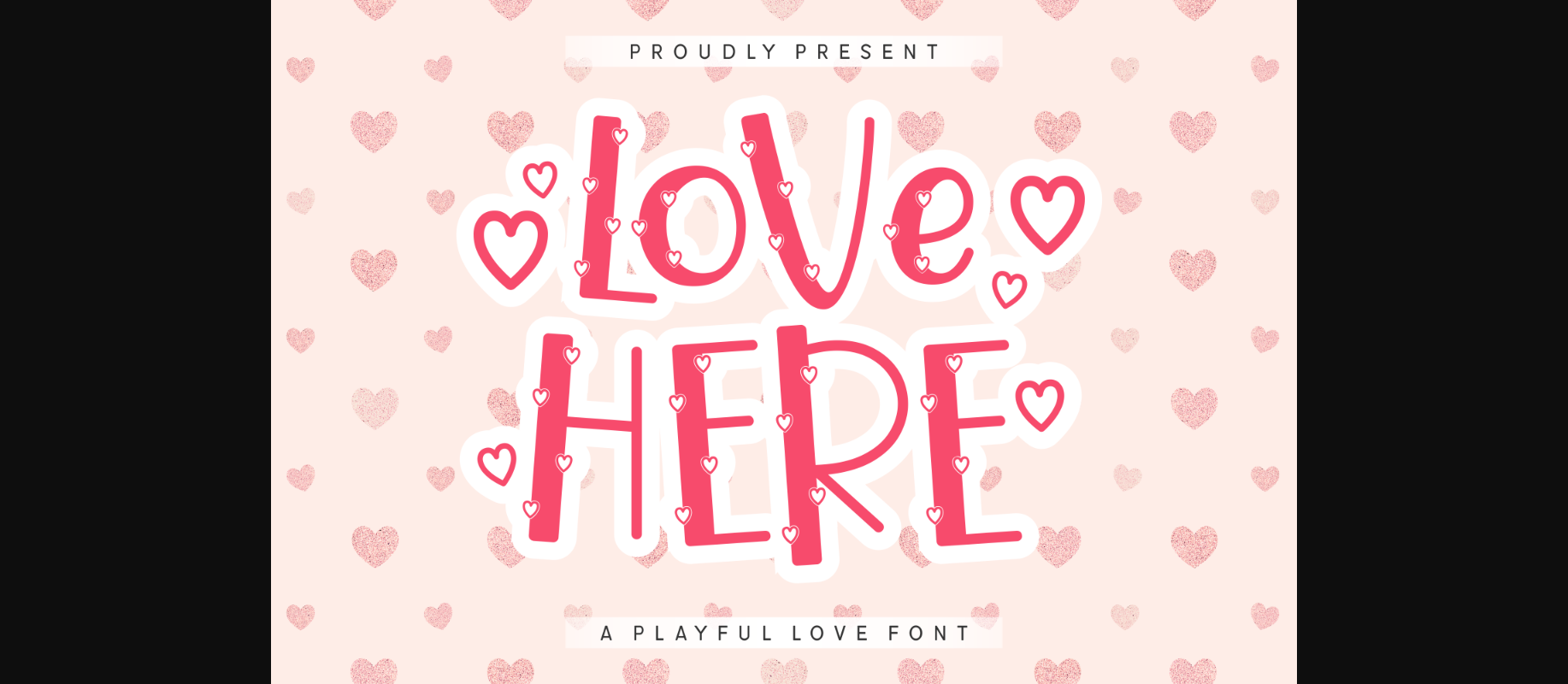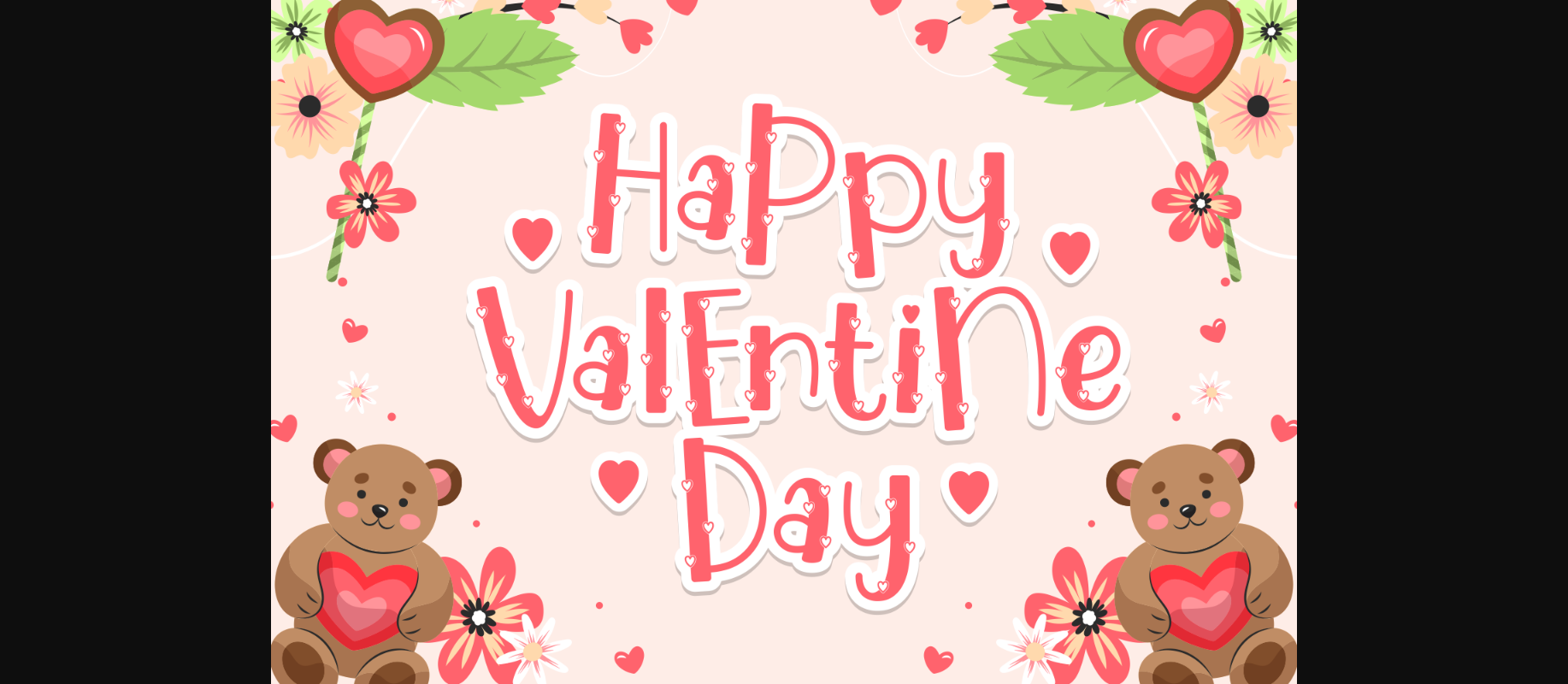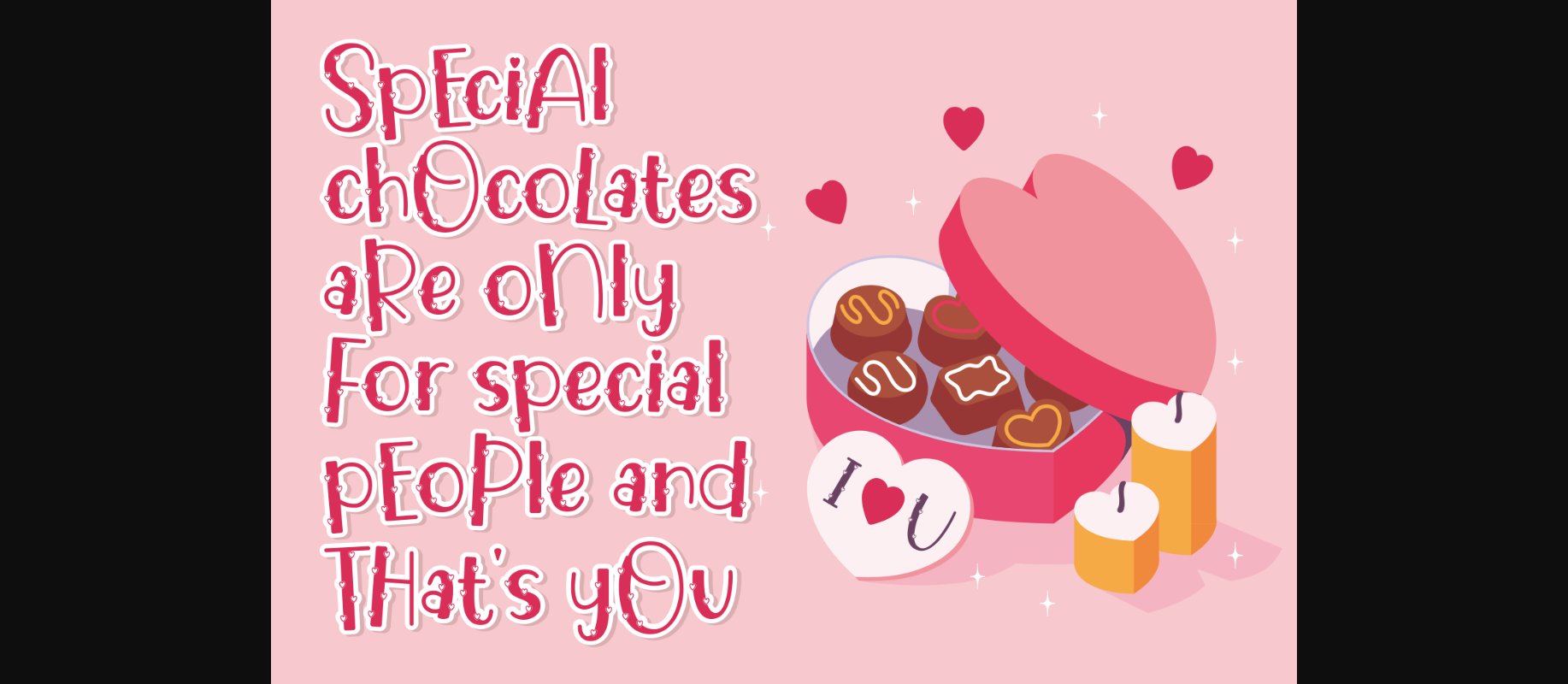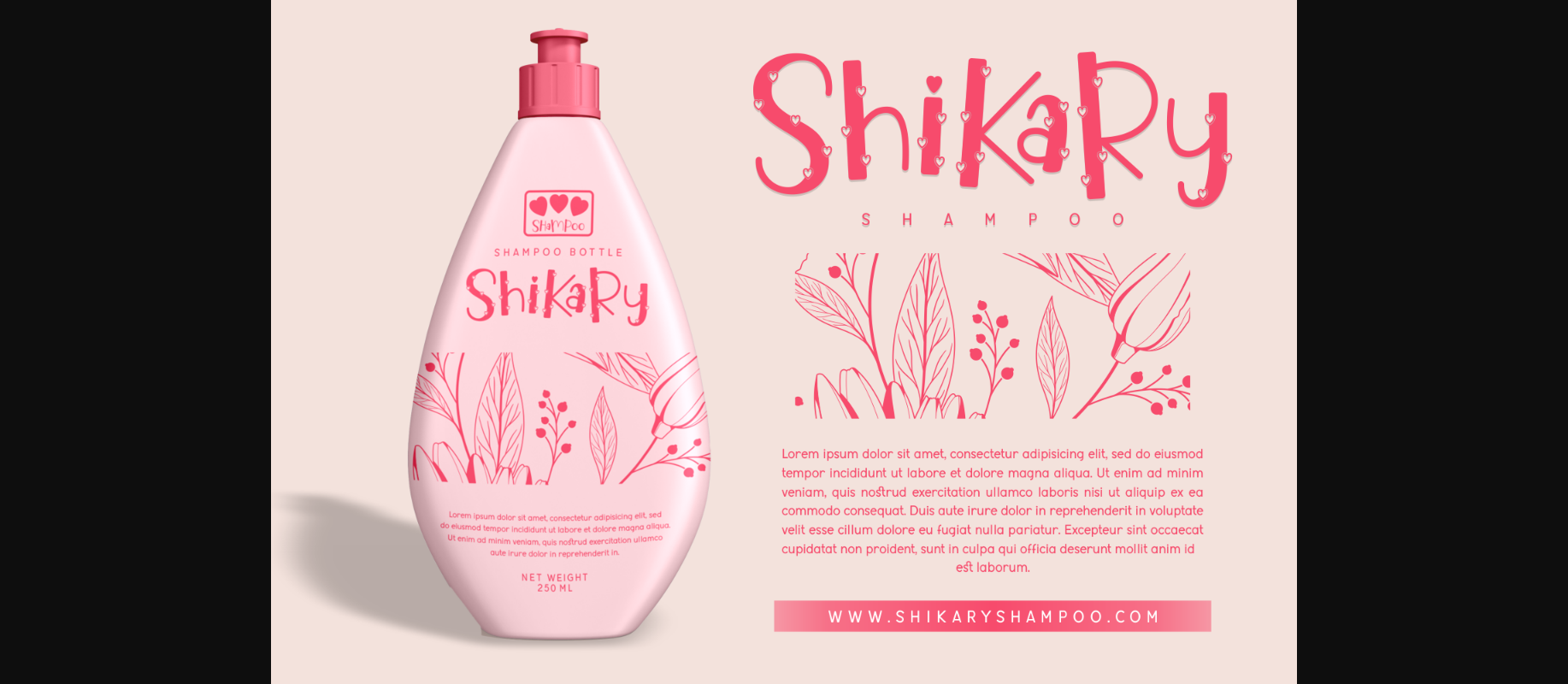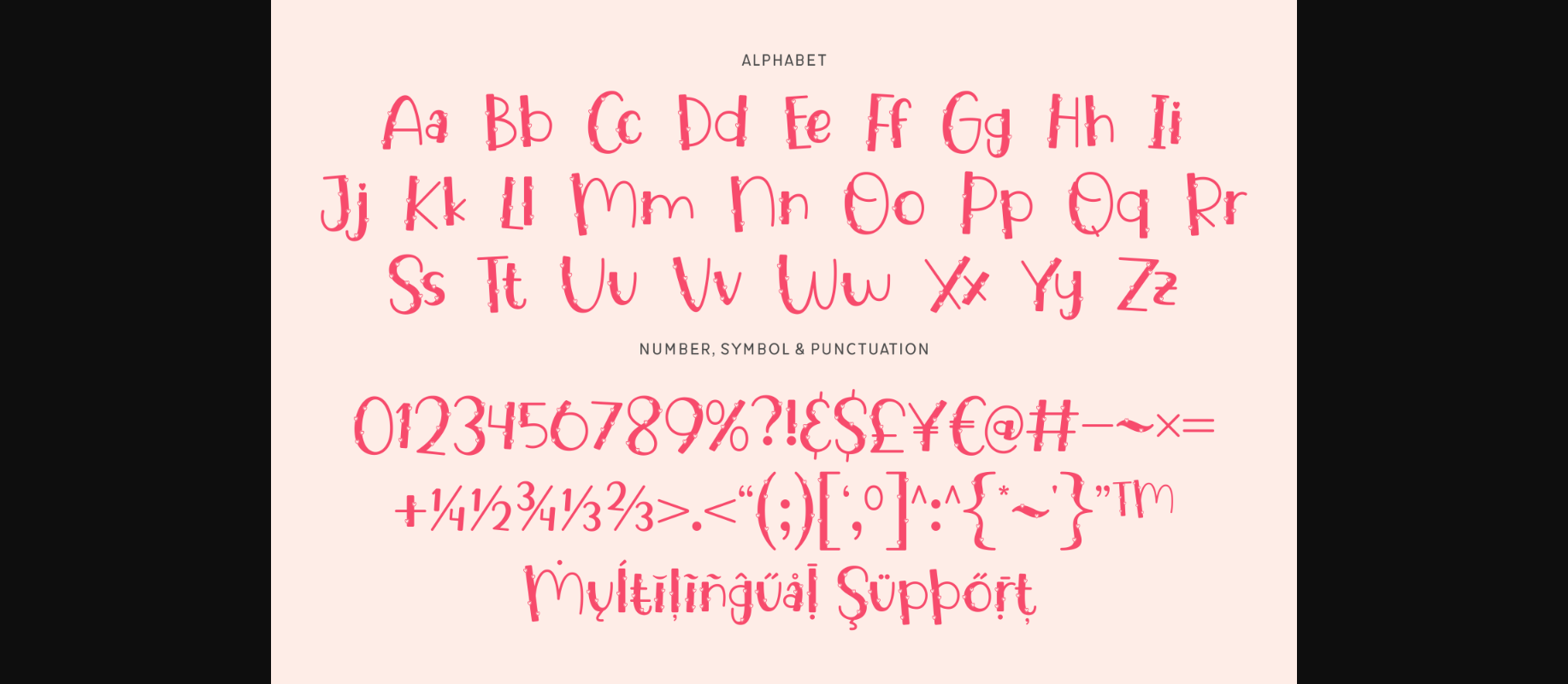
About Love Here Font
Love Here is a sweet and adorable decorative font. It has cute little hearts all over the letters which makes it suitable for all your Valentine’s Day, romantic projects.